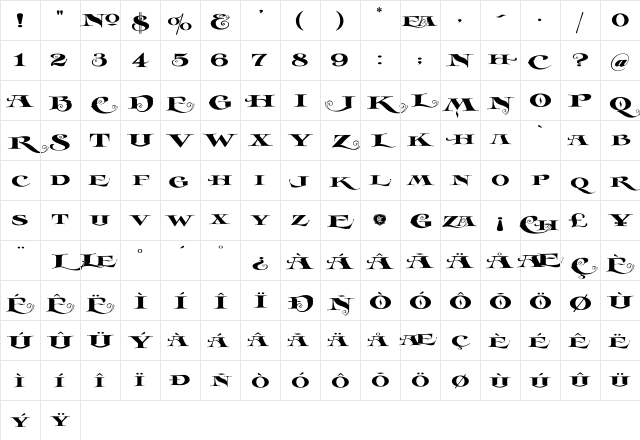
LHF Cafe Corina BETA Regular
Foundry: Chuck Davis for Letterhead Fonts
Designer: Chuck Davis for Letterhead Fonts
Design Context for LHF Cafe Corina BETA
LHF Cafe Corina BETA is a composed and adaptable typeface that performs quietly and consistently across a wide range of design contexts.
Who designed the LHF Cafe Corina BETA Regular font?
This font was published by Chuck Davis for Letterhead Fonts. Check the technical specs section for copyright and designer details.